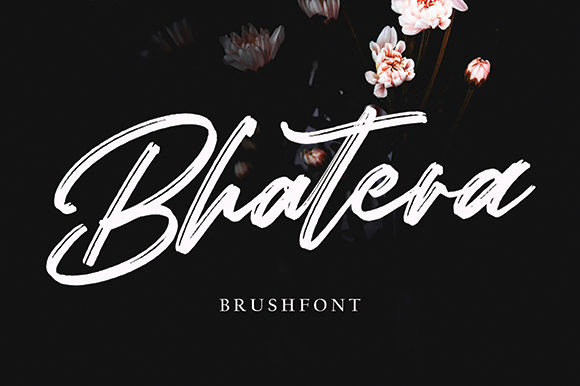
Prepare to be captivated by Bhatera Font, a script masterpiece that exudes effortless elegance and versatility. This meticulously crafted handwritten font, a labor of love by Pineungtype & Missinklab, invites you to elevate your designs to extraordinary heights.
At the heart of Bhatera Font lies its charming personality, an irresistible blend of warmth and sophistication. Its unassuming nature belies its remarkable adaptability, making it the perfect choice for a wide range of design projects. Picture it gracing wedding invitations, adding a touch of intimacy to personal letters, or commanding attention in eye-catching headlines.
The beauty of Bhatera Font lies in its ability to seamlessly blend with any background or design element. Its carefully balanced strokes and graceful curves ensure readability even against bustling backdrops. Whether you're seeking a font that whispers softly or proclaims boldly, Bhatera Font has the power to transform your words into captivating expressions.
Embrace the allure of Bhatera Font and unleash your creativity. Its versatility knows no bounds, inspiring you to create designs that resonate with your audience. From the subtle elegance of handwritten notes to the bold impact of digital campaigns, Bhatera Font empowers you to make a lasting impression every time.